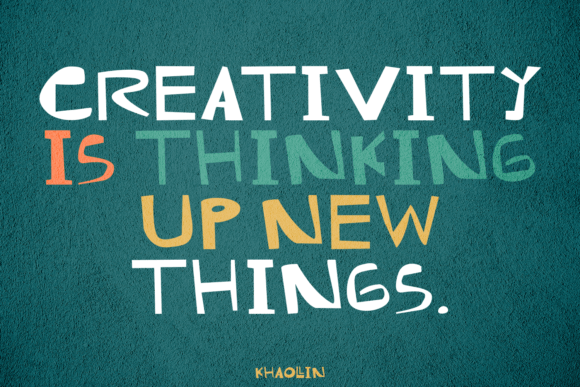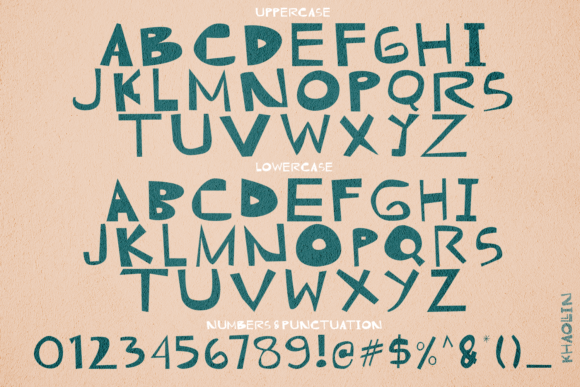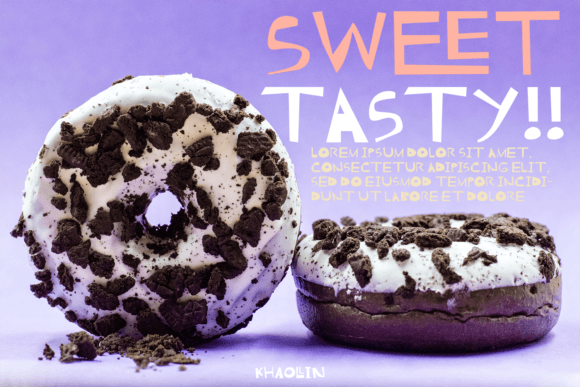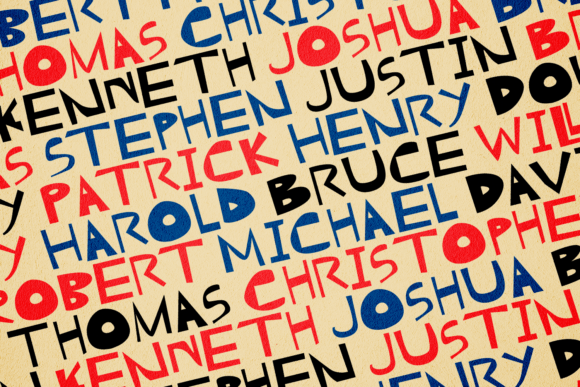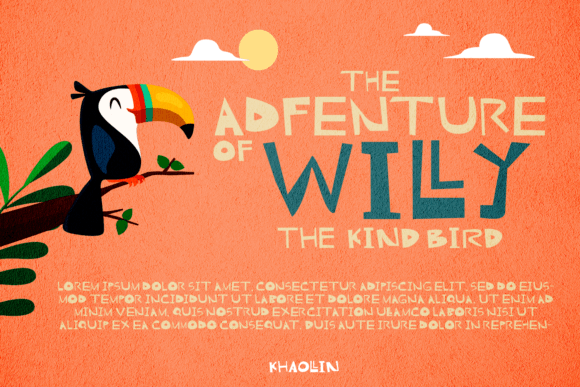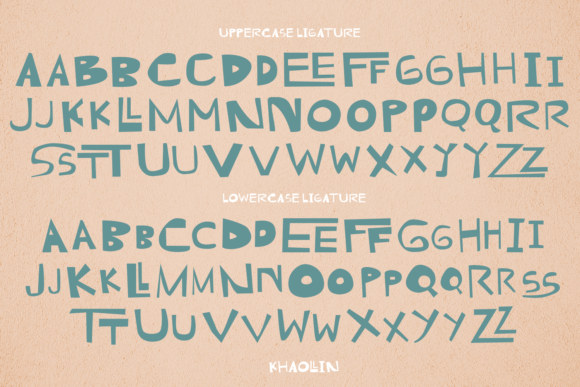
Introduction to Khaollin Font
You know that feeling when you’re brainstorming ideas for a creative project and everything just clicks? The words flow, the images align, and the overall vibe is just right? That’s what happened when we discovered the Khaollin Font – a playful, high-quality design resource that’s perfect for bringing your ideas to life.
With its unique, hand-drawn style and transparent background, the Khaollin Font is a game-changer for designers looking to add a personal touch to their work. Whether you’re designing book titles, product packaging, or invitations, this versatile font is sure to elevate your project and make it stand out from the crowd.
Key Features of Khaollin Font
- High-quality design for various creative projects, including graphic design, web design, and digital art.
- Unique and stylish font with a transparent background, ideal for adding a touch of elegance to your design resource.
- High-resolution font with a minimum size of 1024 x 1024 pixels, ensuring crisp and clear text rendering.
- Perfect for use in headings, titles, and body text, thanks to its legible and modern design.
Honest Review: Khaollin Font
I recently came across the Khaollin Font, and I must say it’s a great addition to any design resource collection. This high-quality font is perfect for creative projects where you need a clean and modern look.
- ✨ High-quality design that’s perfect for modern projects
- ✨ Transparent background makes it easy to use with any design
- ⚠️ Limited font styles and weights available
- ⚠️ May not be suitable for projects that require a lot of customization
Overall, I’m impressed with the Khaollin Font and would definitely recommend it as a design resource. It’s a great option for designers who need a high-quality font that’s easy to use and customize.
Getting the Most Out of the Khaollin Font
To get the most out of the Khaollin Font, experiment with different font sizes, colors, and styles to create unique and eye-catching designs. You can also use the font in combination with other design elements to create complex and detailed designs.
Common Use Cases for the Khaollin Font
The Khaollin Font is a versatile design resource that can be used in a variety of creative projects, including logos, graphics, and presentations. It’s also perfect for use in digital products, such as ebooks and web pages, where a high quality and visually appealing font is essential.